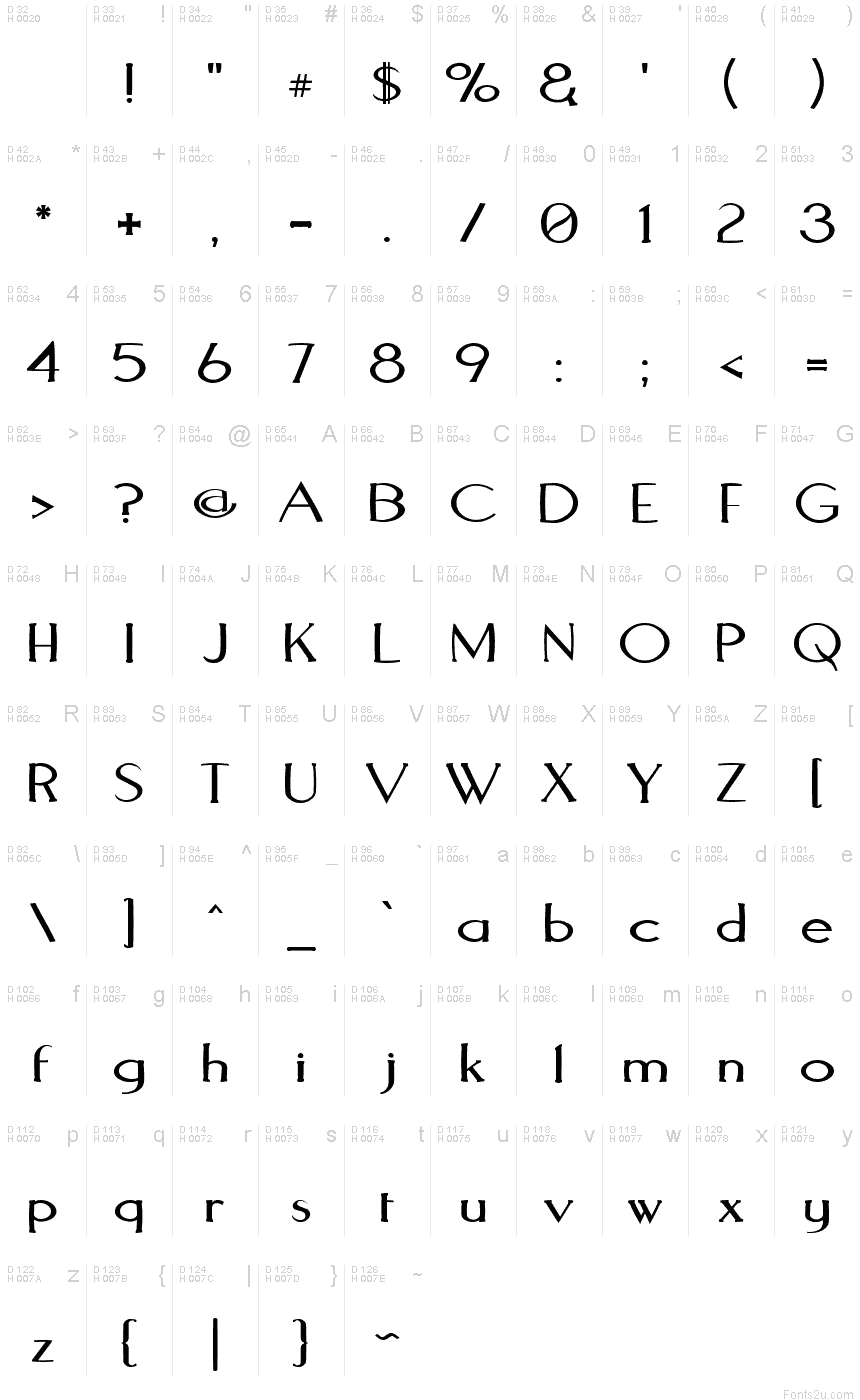
Aquaduct Warp
Aquaduct Warp font by Graham Meade is a free decorative serif typeface in the Aquaduct family that twists classic letterforms into something a little more enchanted. The strokes feel hand-drawn and slightly windswept, with subtle curves and tapering that suggest ink dragged across textured paper. It has a storybook quality—elegant yet irregular enough to feel human, like signage from an old fantasy port town or a mysterious apothecary.
Using Aquaduct Warp, your titles instantly gain a sense of myth and atmosphere without slipping into gimmickry. This free font works beautifully for book covers, fantasy game logos, boutique branding, packaging, posters, and event invitations where you want a touch of magic. Keep it at larger sizes so the quirky curves and sculpted silhouettes stay crisp, and pair it with a simple geometric sans-serif to handle body copy and keep layouts readable.